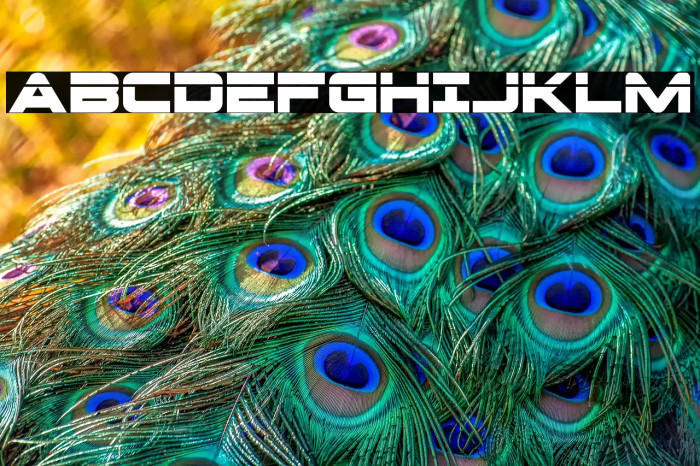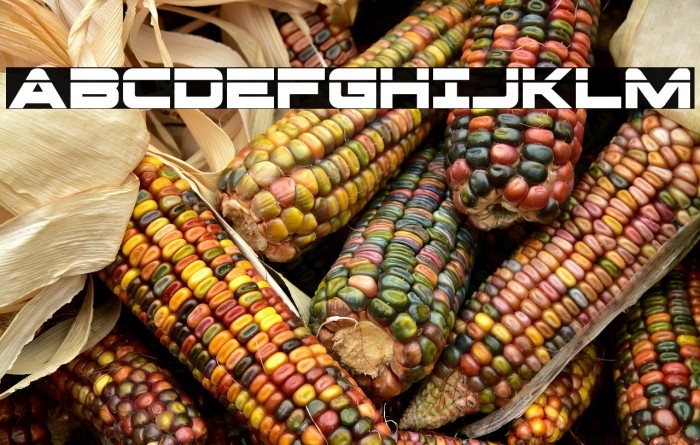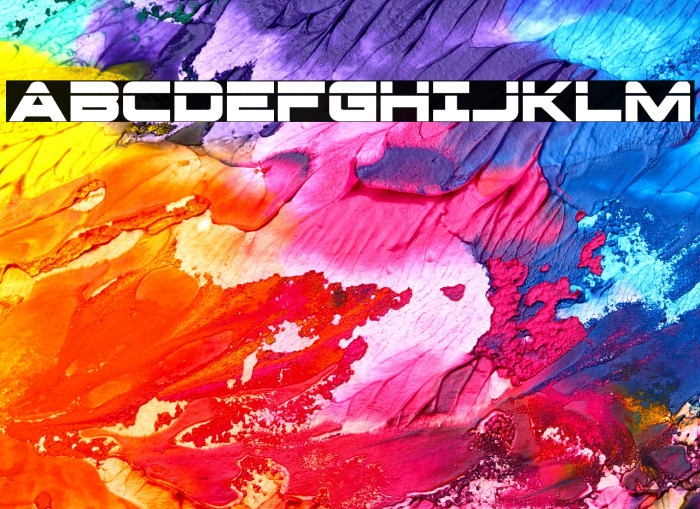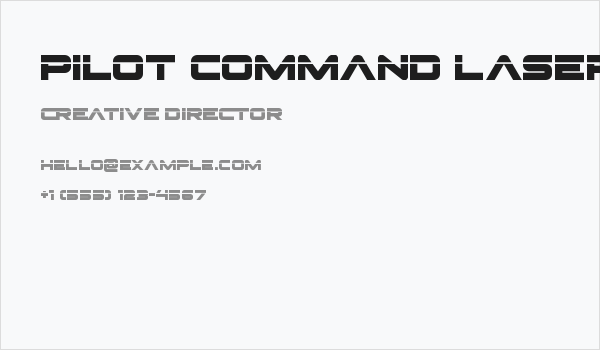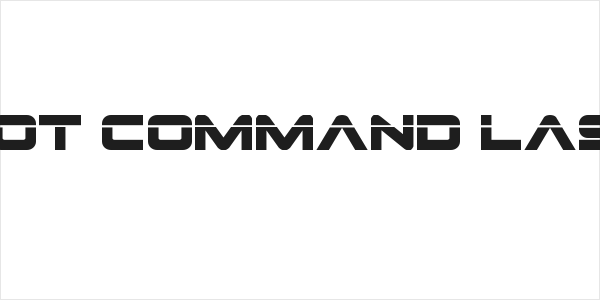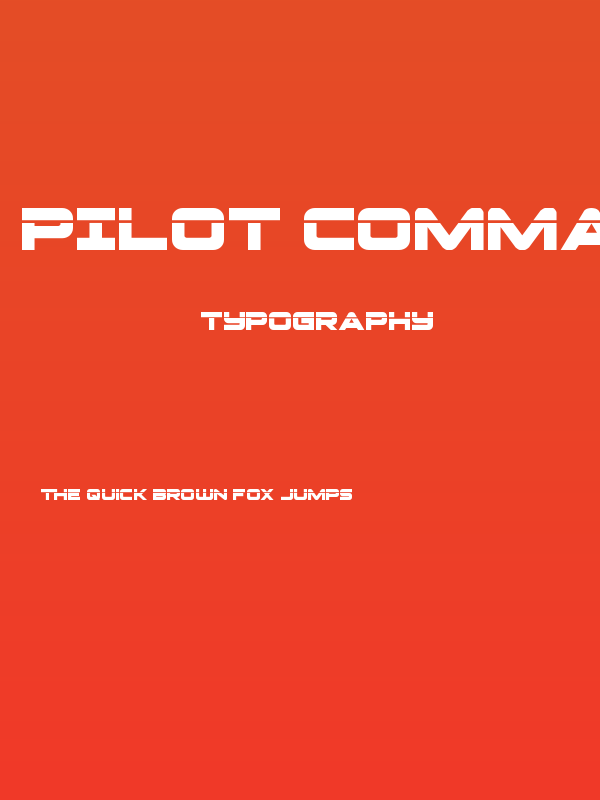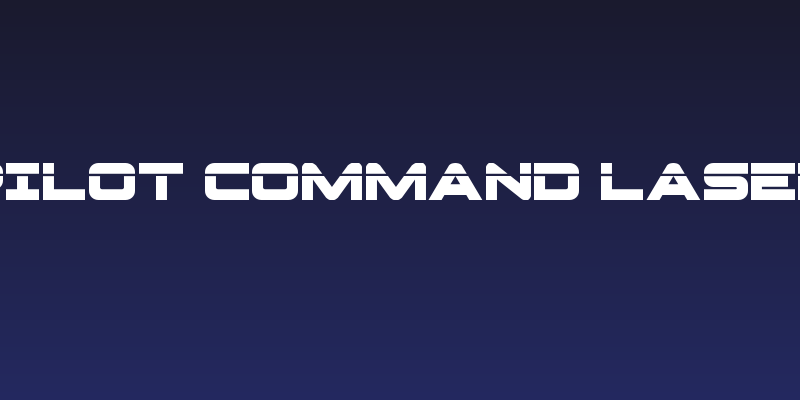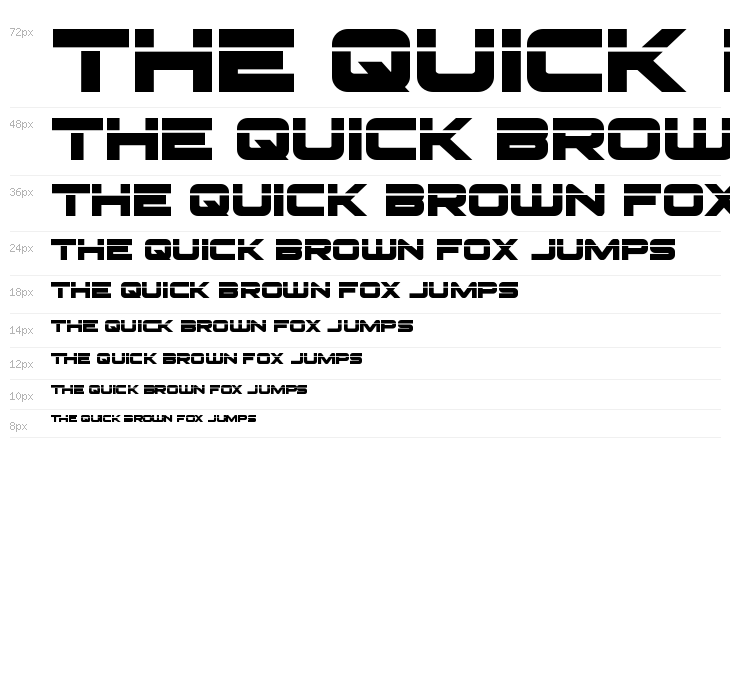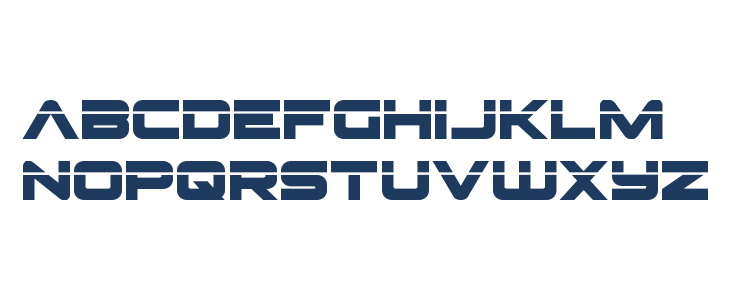
Pilot Command Laser Font
Pilot Command Laser Description
This font features a bold, futuristic design with a strong geometric structure. The characters are constructed with sharp angles and clean lines, creating a sense of precision and modernity. The uppercase letters are particularly striking, with a uniform height and consistent stroke width that enhances readability. The numbers and special characters maintain the same bold aesthetic, making them suitable for impactful displays. The overall style is reminiscent of sci-fi themes, making it ideal for projects that require a modern and technological feel.
| Proposed Projects | Ideal for sci-fi movie posters, video game titles, technology branding, and futuristic-themed designs. |